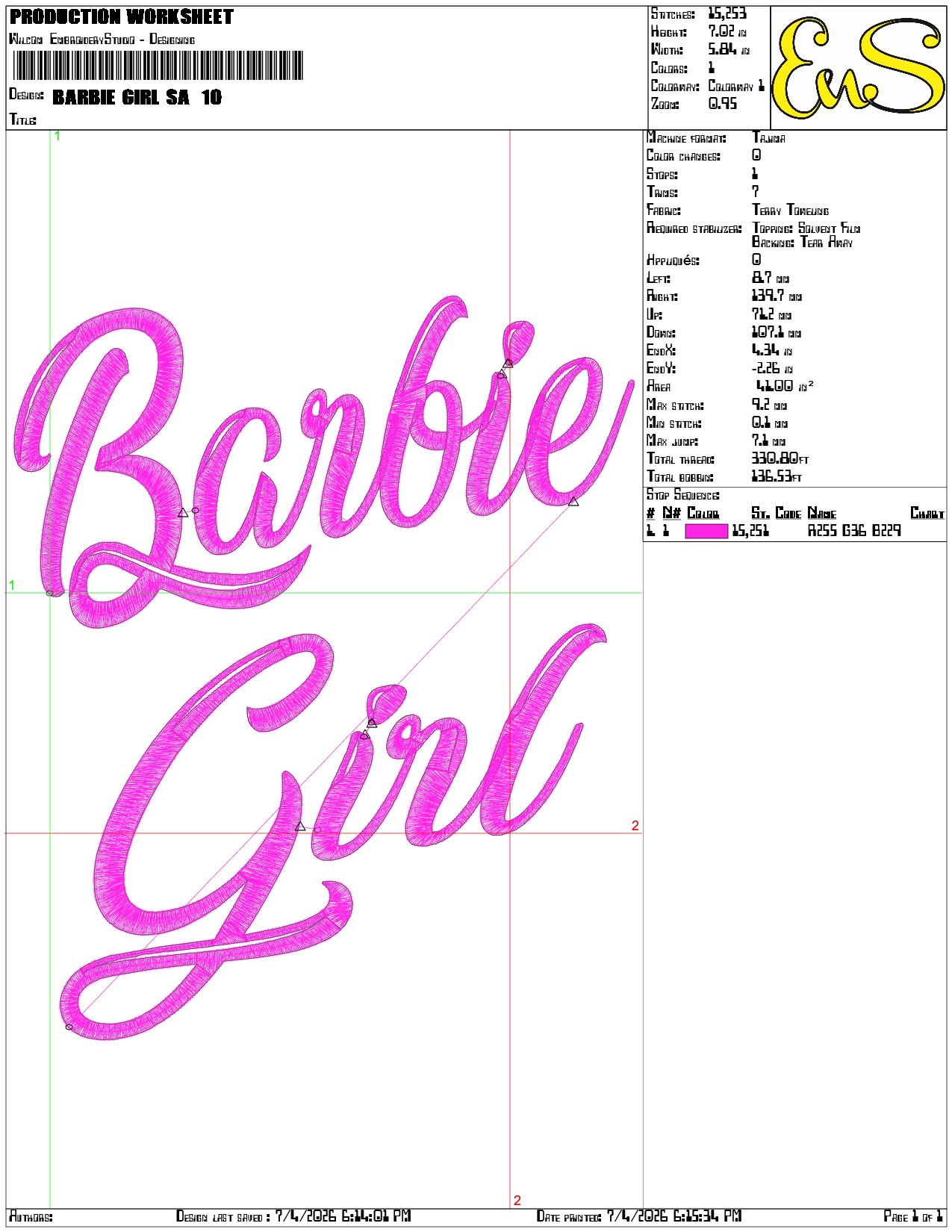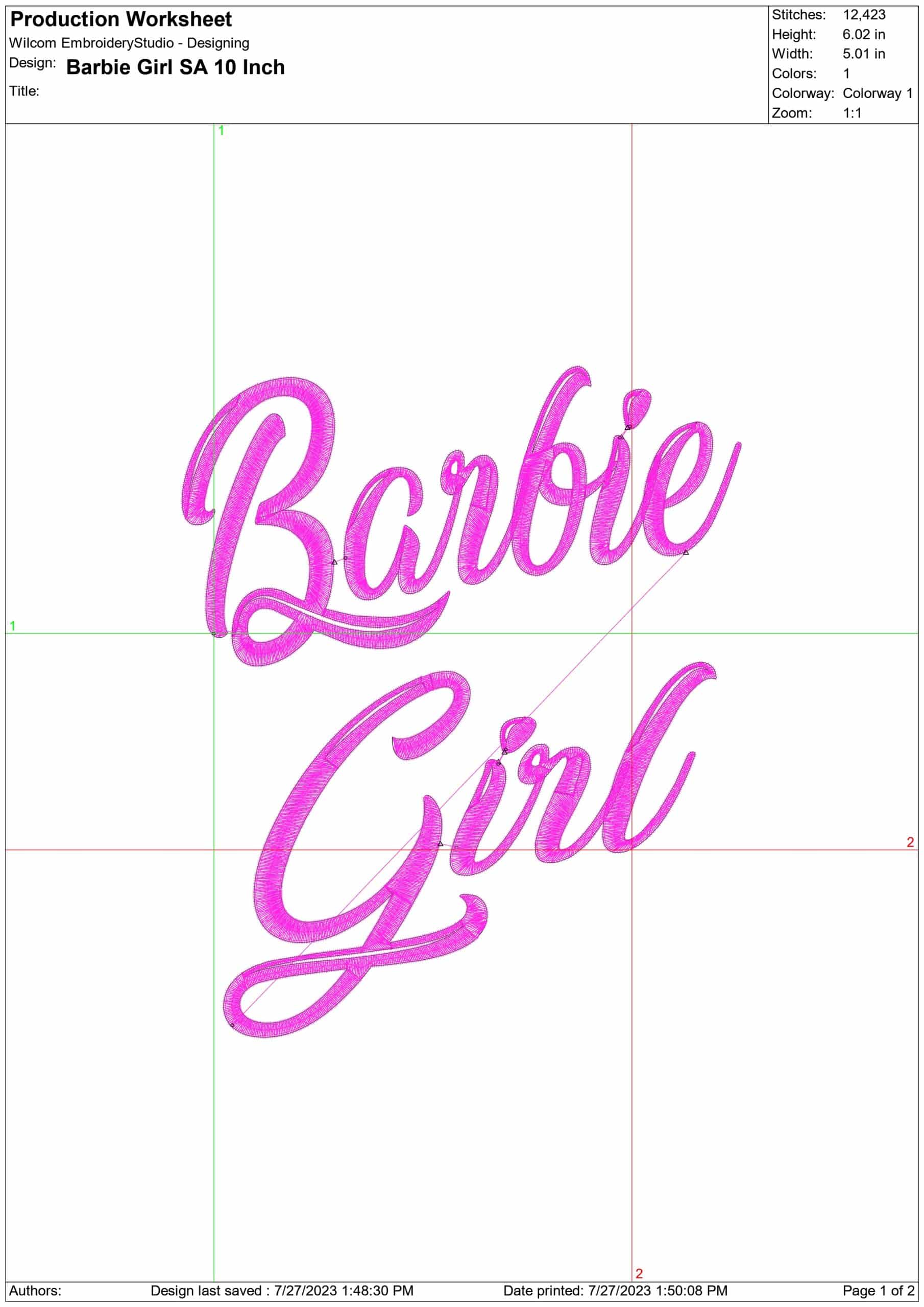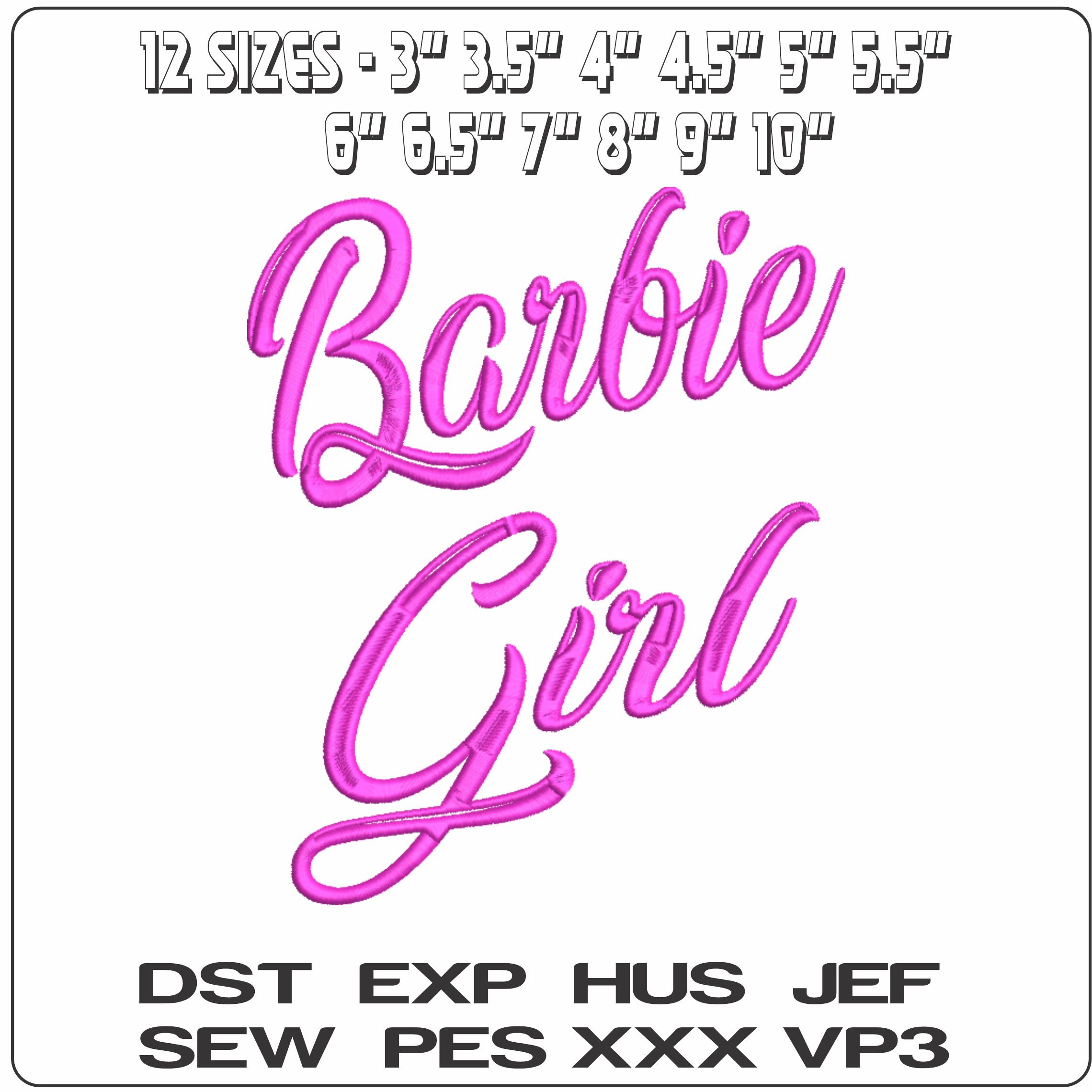
Soft pink “Barbie Girl” script adds a playful, fashion-led finish to sweatshirts, totes and children’s accessories.
Bring soft pink charm to a sweatshirt or dress with this "Barbie Girl" text design, stitched in flowing cursive across two lines. The handwritten lettering and extended swashes give it that dressed-up, boutique look rather than a plain block-text feel. It suits children’s pieces, girly gifts and fun custom makes for anyone who likes their embroidery sweet, feminine and easy to read.
Because it uses a single thread colour and an open, lightly stitched style, it keeps the look airy instead of heavy. That makes it a good choice for T-shirts, hoodies, denim jackets, canvas totes and cotton pyjamas where you want wording to sit neatly without turning stiff. The larger size range also gives you room to use it as a small chest detail or let the script spread out across the back of a jacket or the front of a cushion.